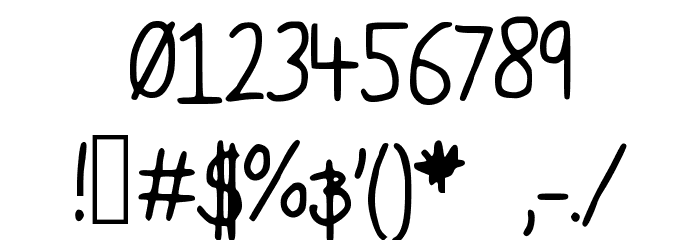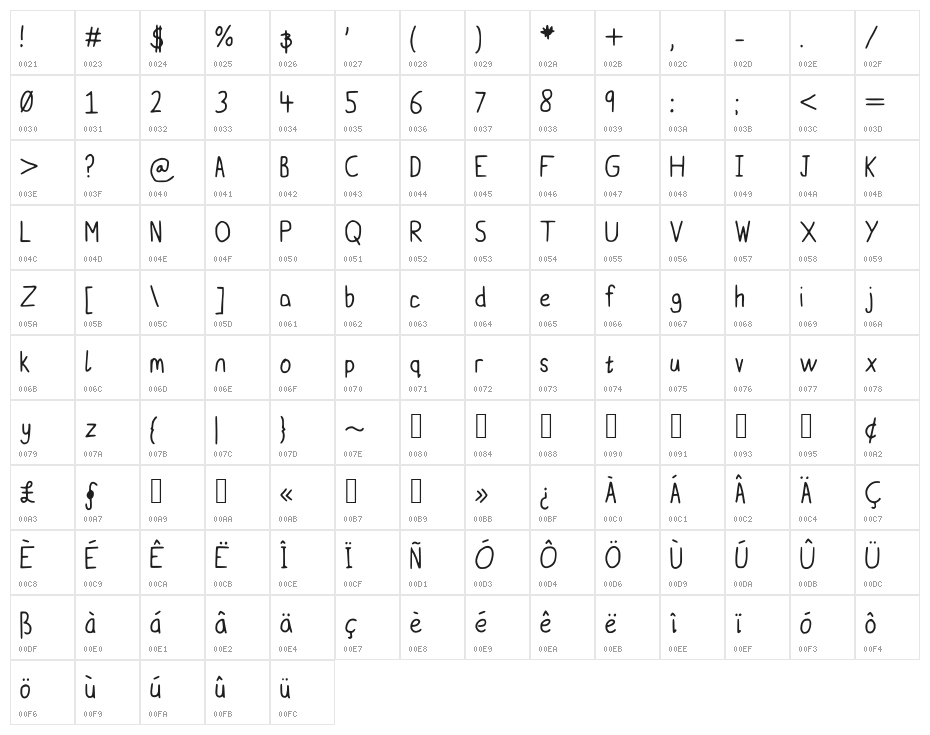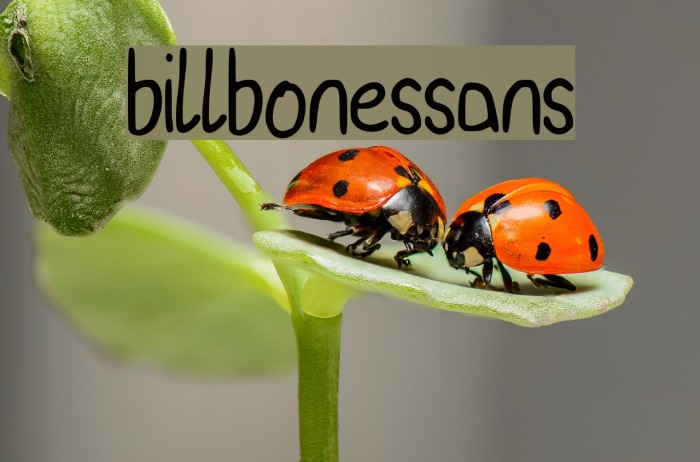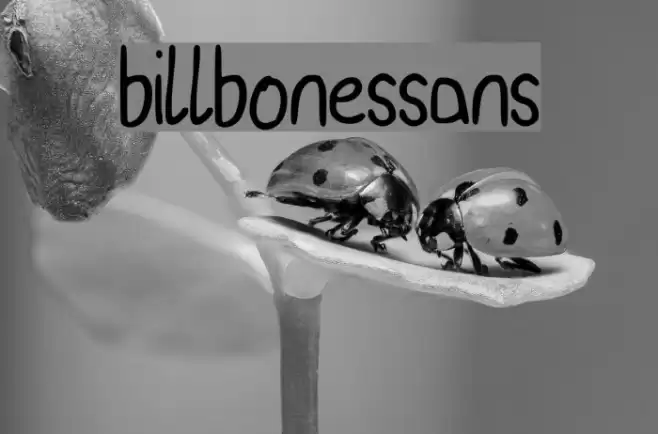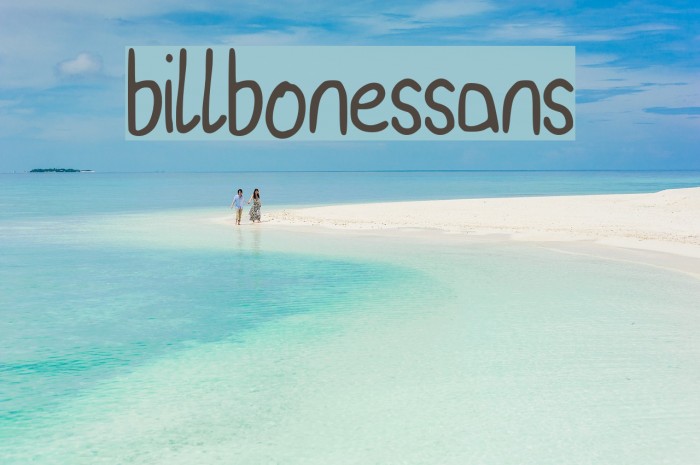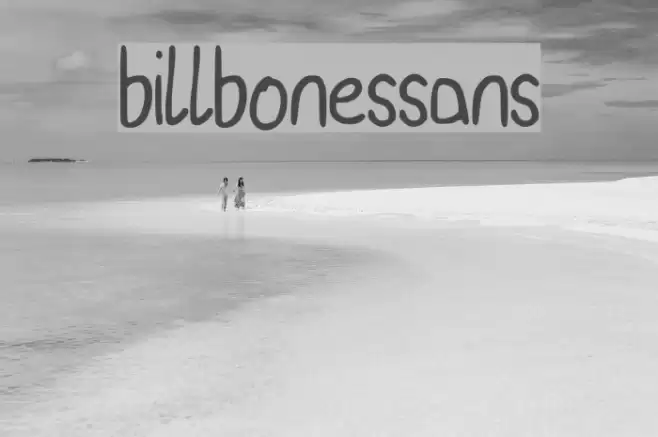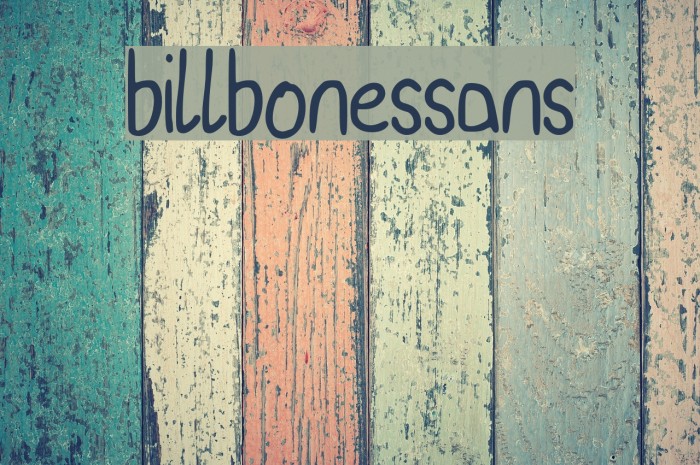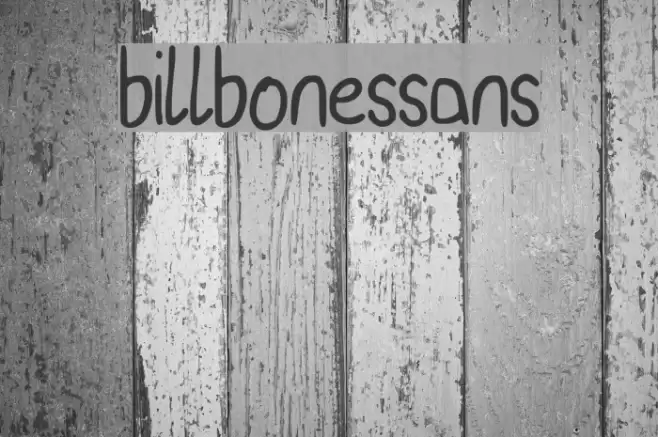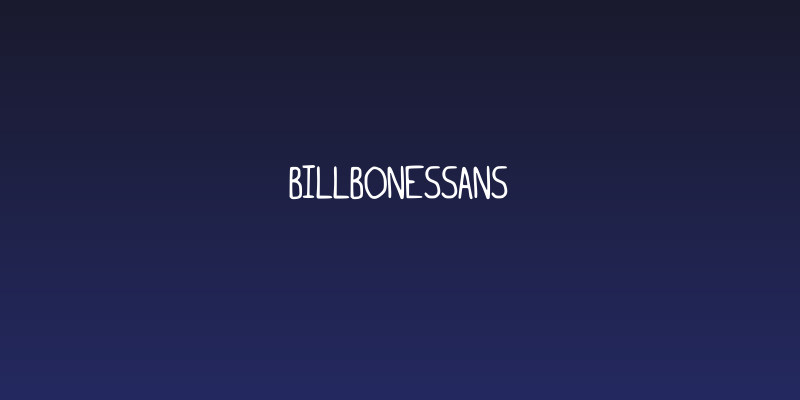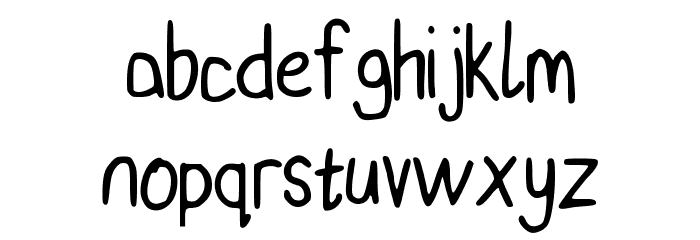
billbonessans Font
billbonessans Description
This font features a playful and informal style with rounded edges and a handwritten appearance. The characters are slightly irregular, adding a whimsical touch that makes it feel approachable and friendly. The uppercase letters are bold and prominent, while the lowercase letters maintain a consistent flow, enhancing readability. The numerals are clear and distinct, matching the overall casual aesthetic. Special characters are well-integrated, maintaining the font's cohesive look. This font's unique charm makes it suitable for creative and informal projects.
| Proposed Projects | Ideal for children's books, greeting cards, playful branding, and informal invitations. |